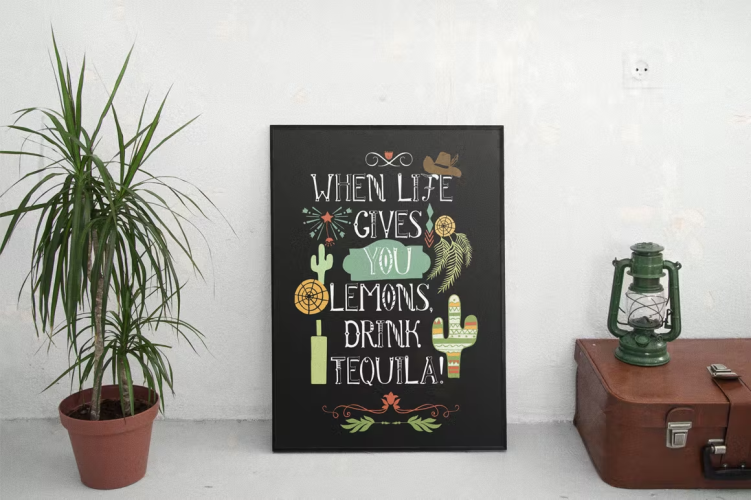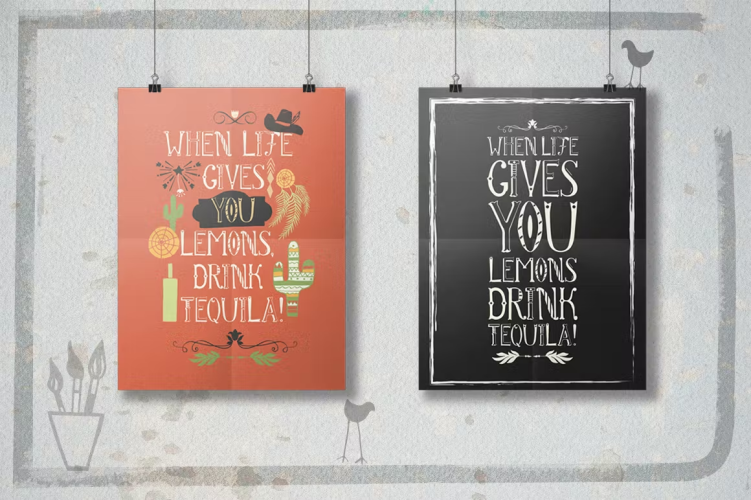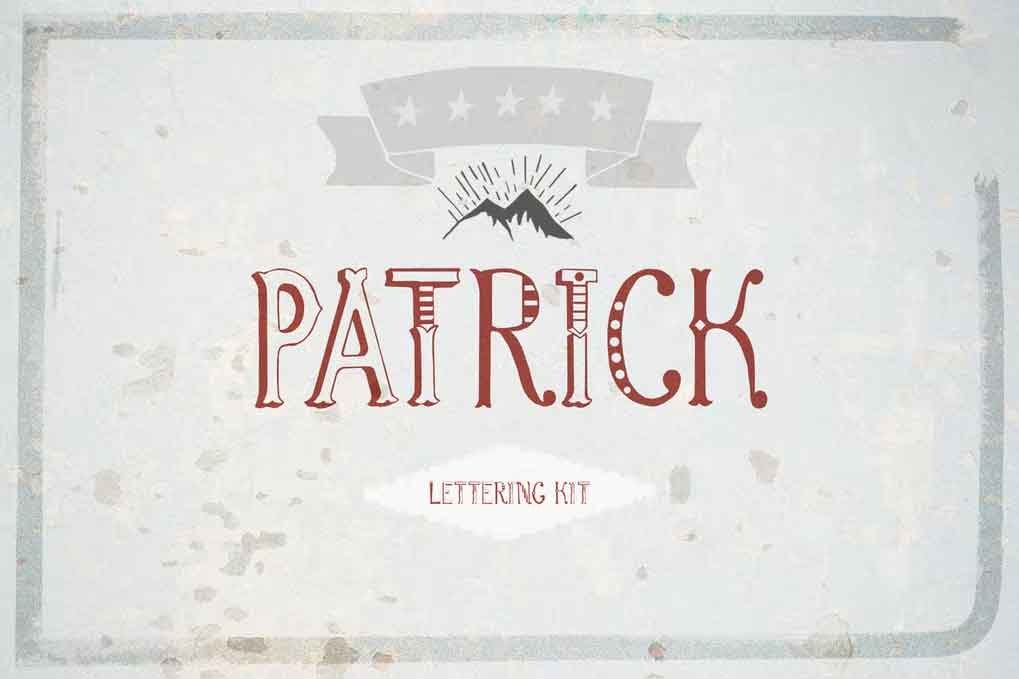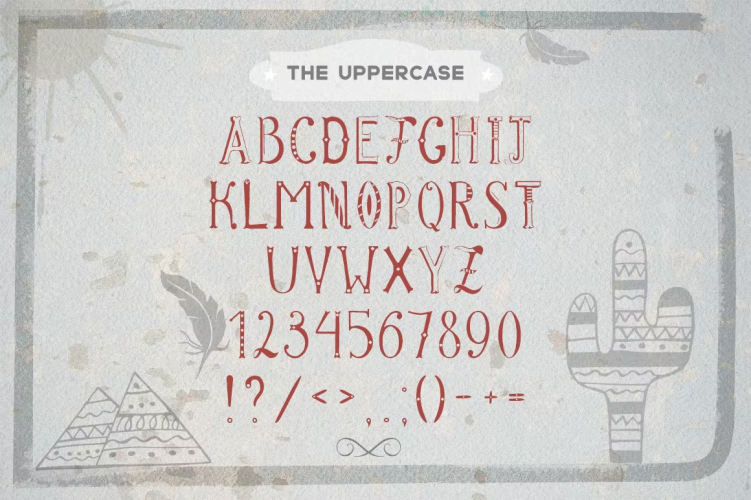
Patrick font & Lettering Kit Font
This font is was created to generate lettering. The package contains an additional 1 file EPS10 205 graphic elements for creating illustrations
Patrick font & Lettering Kit Font is a Script And Handwritten font that brings a professional and versatile look to your projects. This font is was created to generate lettering.